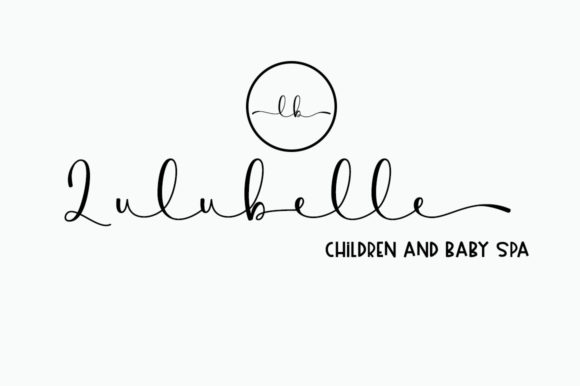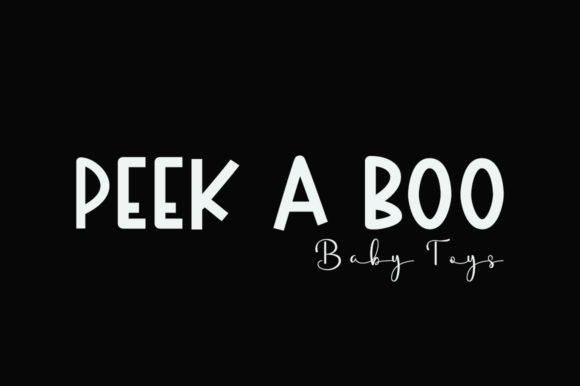
Memories Melodironald Font
db-ku.com - Script & Handwritten -- Memories melodironald is an elegant and playful duo font (decorative and handwritten). It features dainty and delicate swashes that will add an original, appealing look to a wide range of crafty ideas. This font is PUA encoded which means you can access all of the glyphs and swashes with ease!